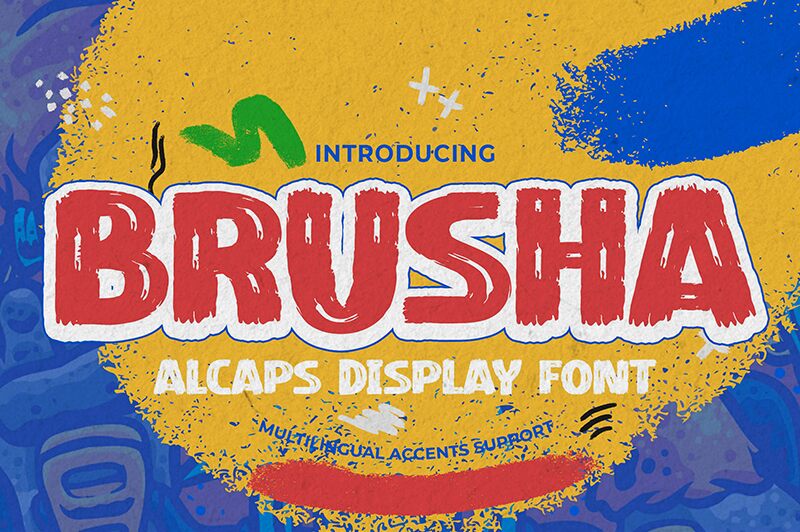
Brusha
Brusha by Gassstype bursts onto the creative scene with its extra-bold, semi-expanded brush font that embodies modern style with a hint of dramatic movement. Crafted to mimic the casual and speedy strokes of a paintbrush, this all-caps display font captures an authentic and fun essence, making it an exceptional choice for a plethora of design needs.
From eye-catching labels and vibrant posters to personalized DIY projects and compelling branding materials, Brusha adds a touch of natural charm to every creation. Its suitability for packaging, greeting cards, web design, photography overlays, and more underscores its versatility.
Dive into the world of Brusha where your designs come alive with an original and spirited flair!